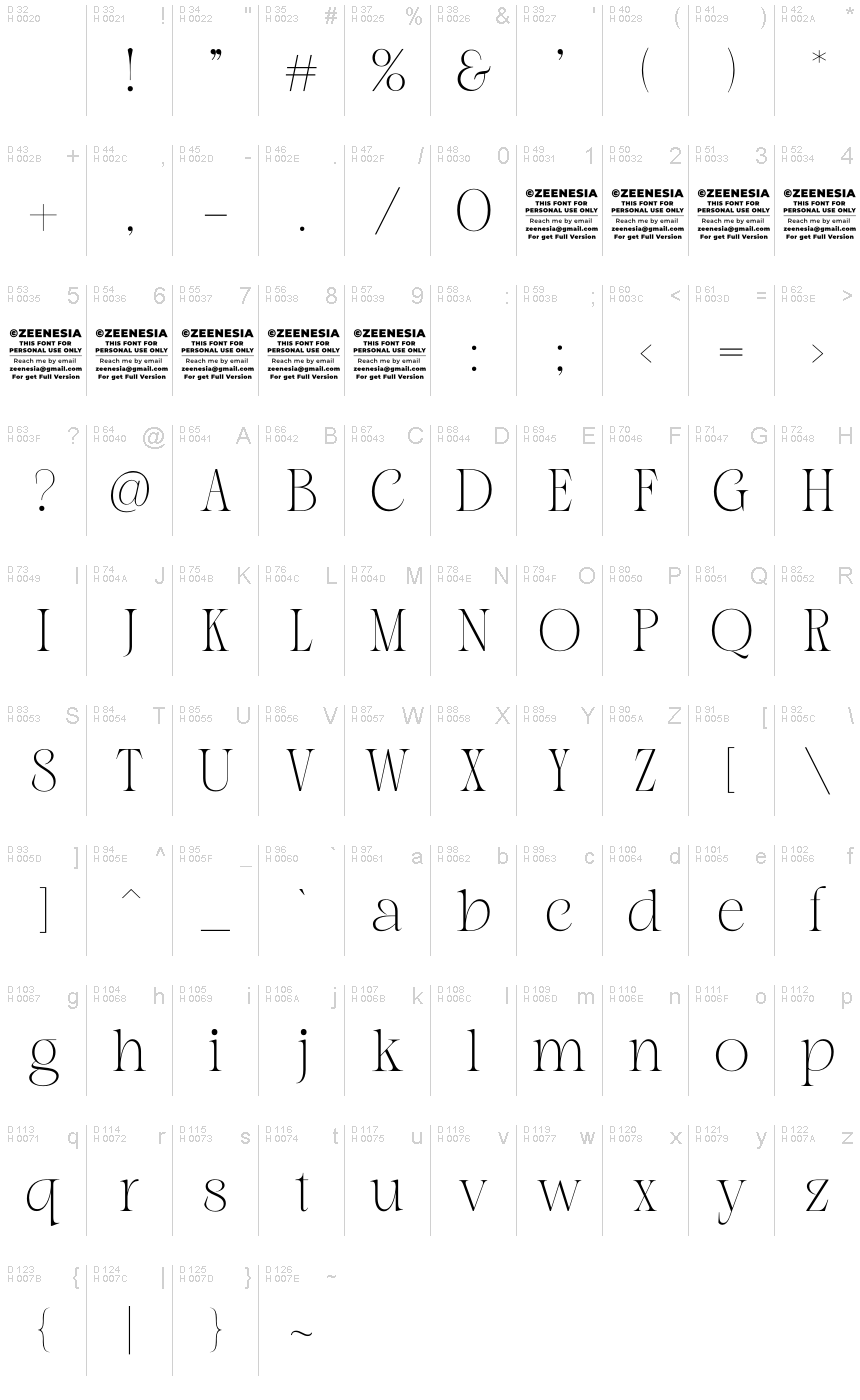
Nebulen Personal Use Only
Nebulen font was designed by Zeenesia Studio. Nebulen is a sophisticated serif font with elegant, thin strokes and high contrast. Its refined lines and sophisticated curves create a classic and formal appearance, with balanced proportions that lend a sense of elegance and precision. This light-weight typeface delivers grace in every character, making it an optimal choice for projects calling for refined typography.